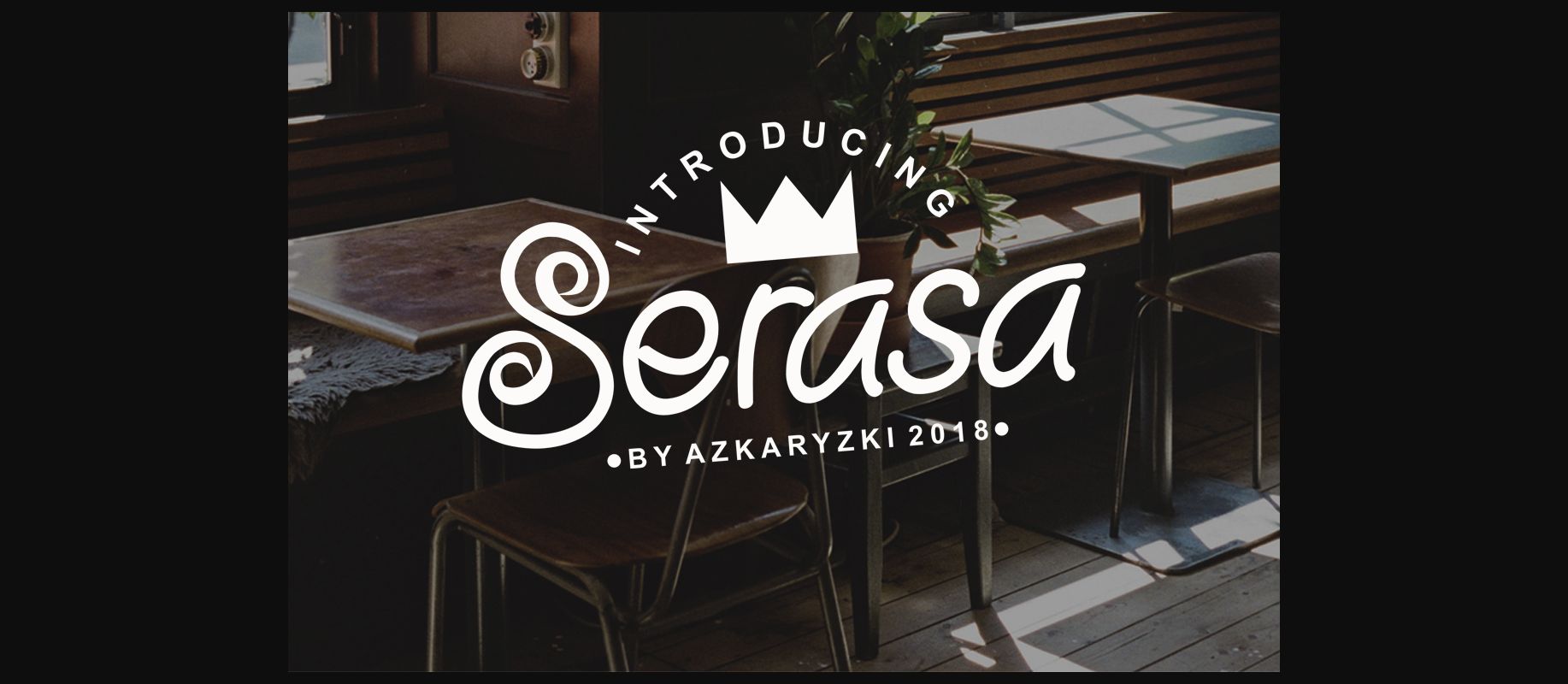
Serasa Font
About Serasa Font
The Serasa is an elegant font. It has a great readability and will add some elegance to your designs.
It can be used for trademarks, logos, branding, and much more!